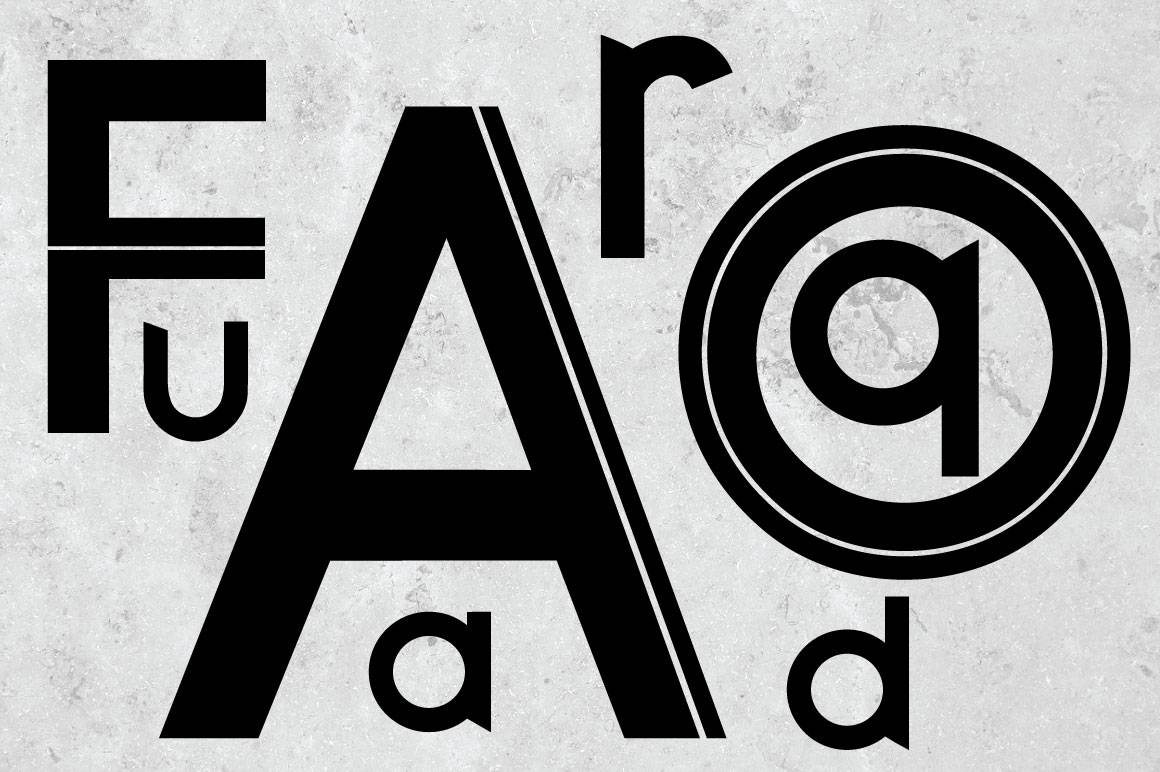
Friday Font is a bold, geometric sans serif typeface with a clean and modern feel. Its strong, uniform strokes and high x-height make it highly legible, while the unique shapes of certain letters add a touch of contemporary personality, making it ideal for stylish branding, headlines, and editorial design. This font works well where a confident, modern, and slightly playful tone is desired.
Friday Font
About Friday Font
| Font family | Friday Font |
| Designer | Pr-Creative |